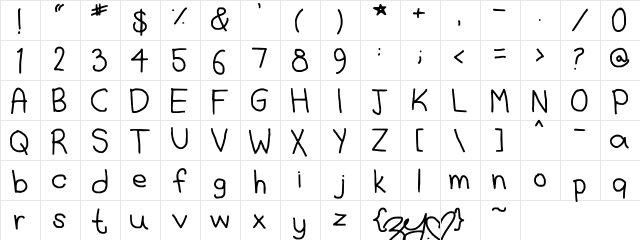
Gameful Regular
Design Context for Gameful Typeface
Gameful is a composed and adaptable typeface that performs quietly and consistently across a wide range of design contexts.